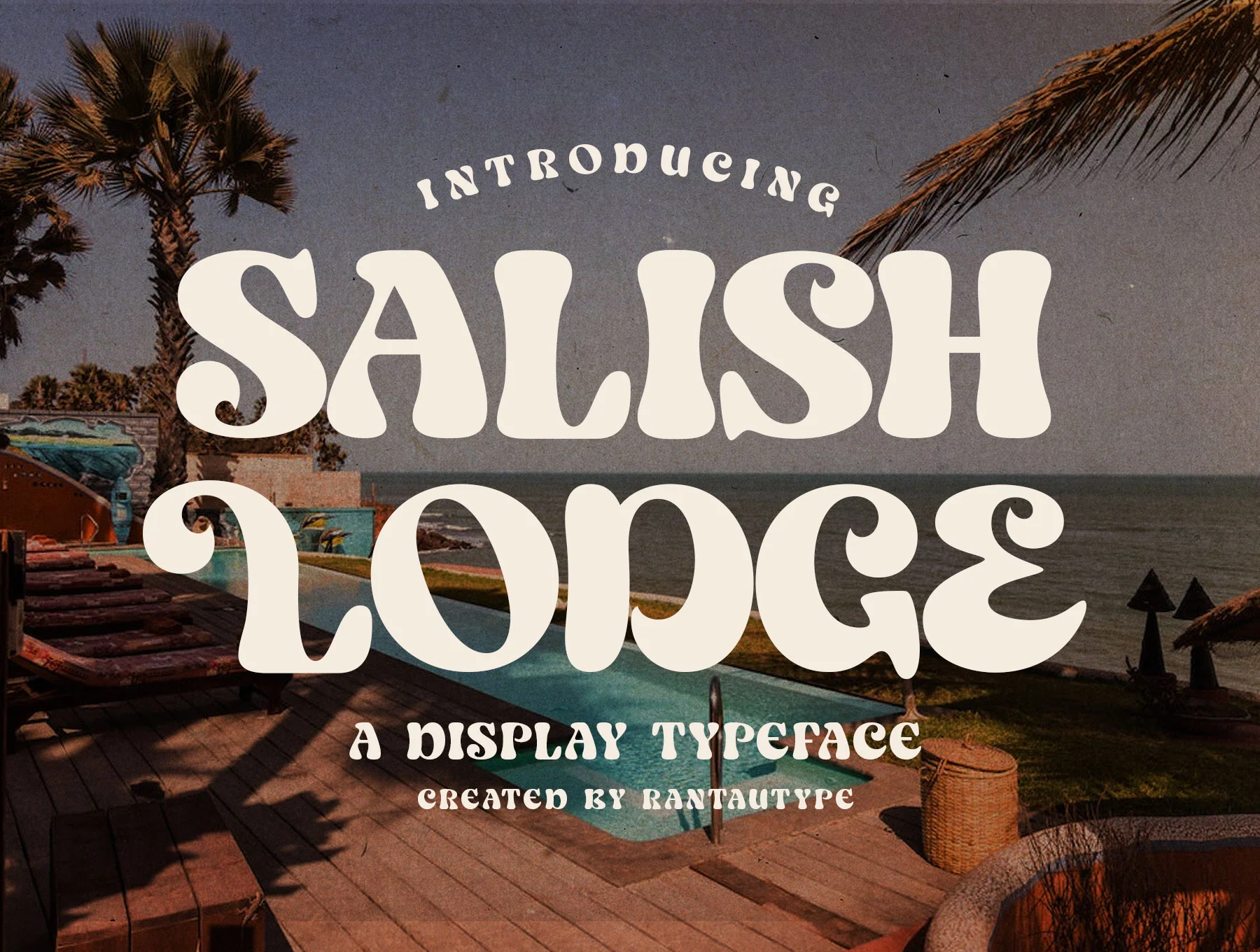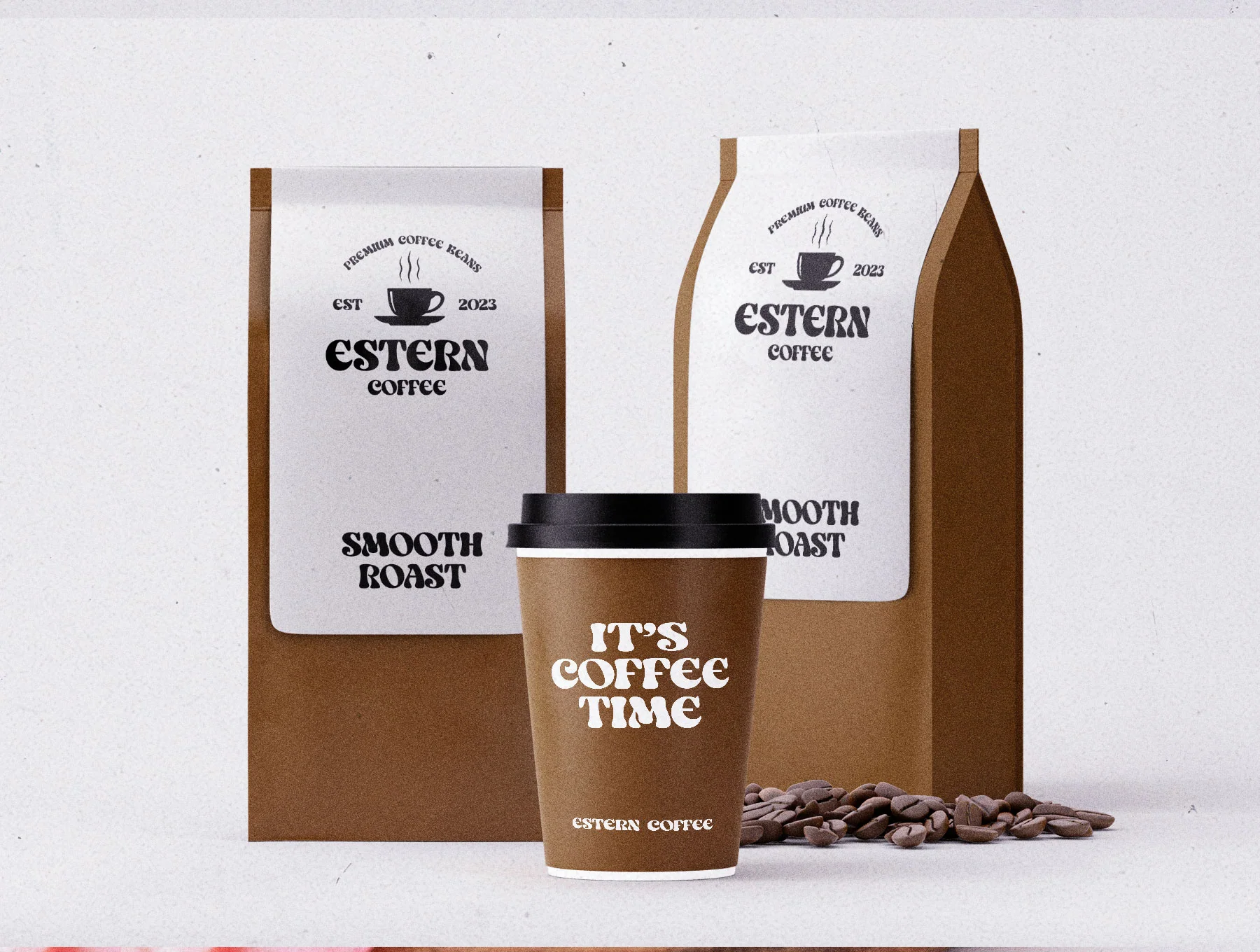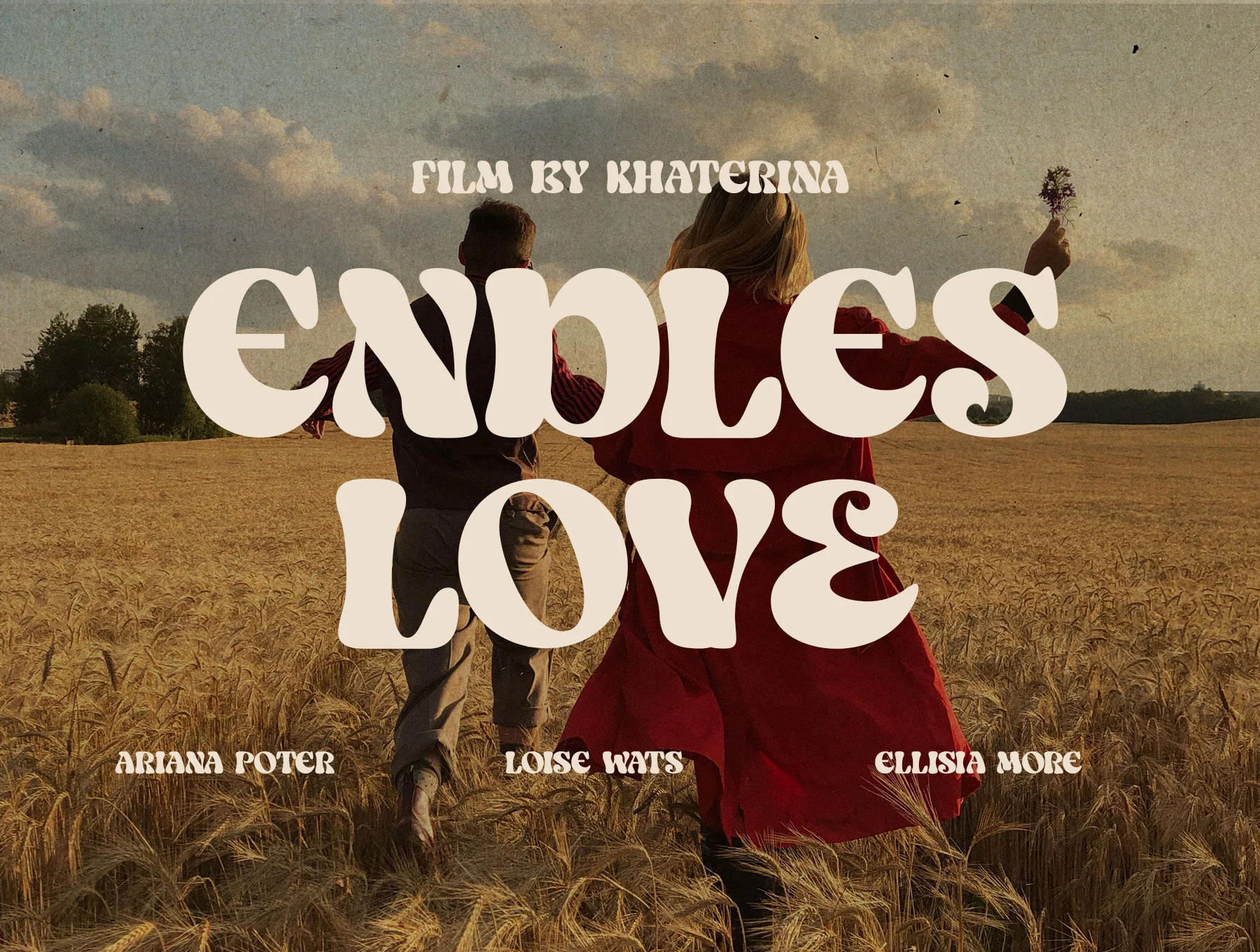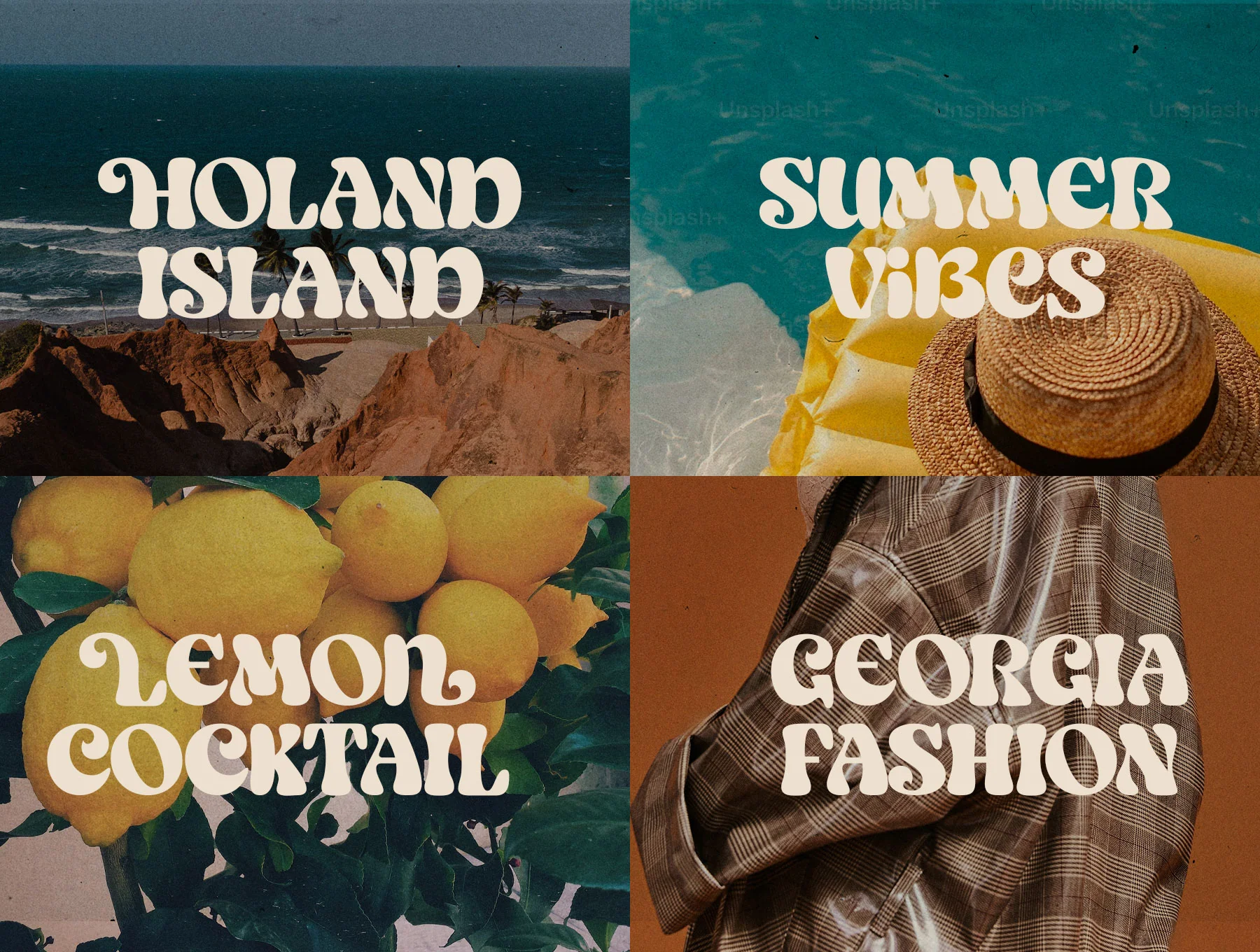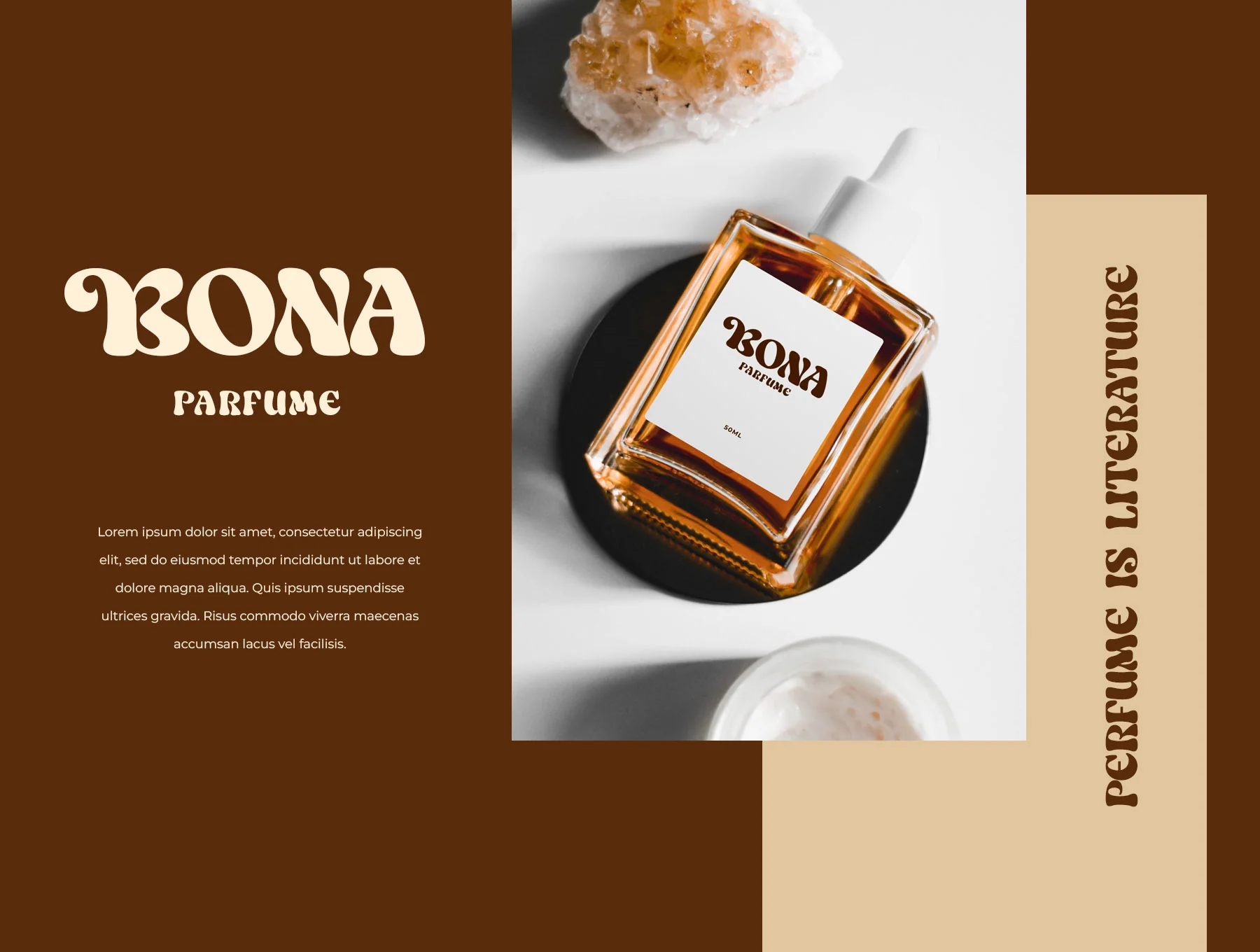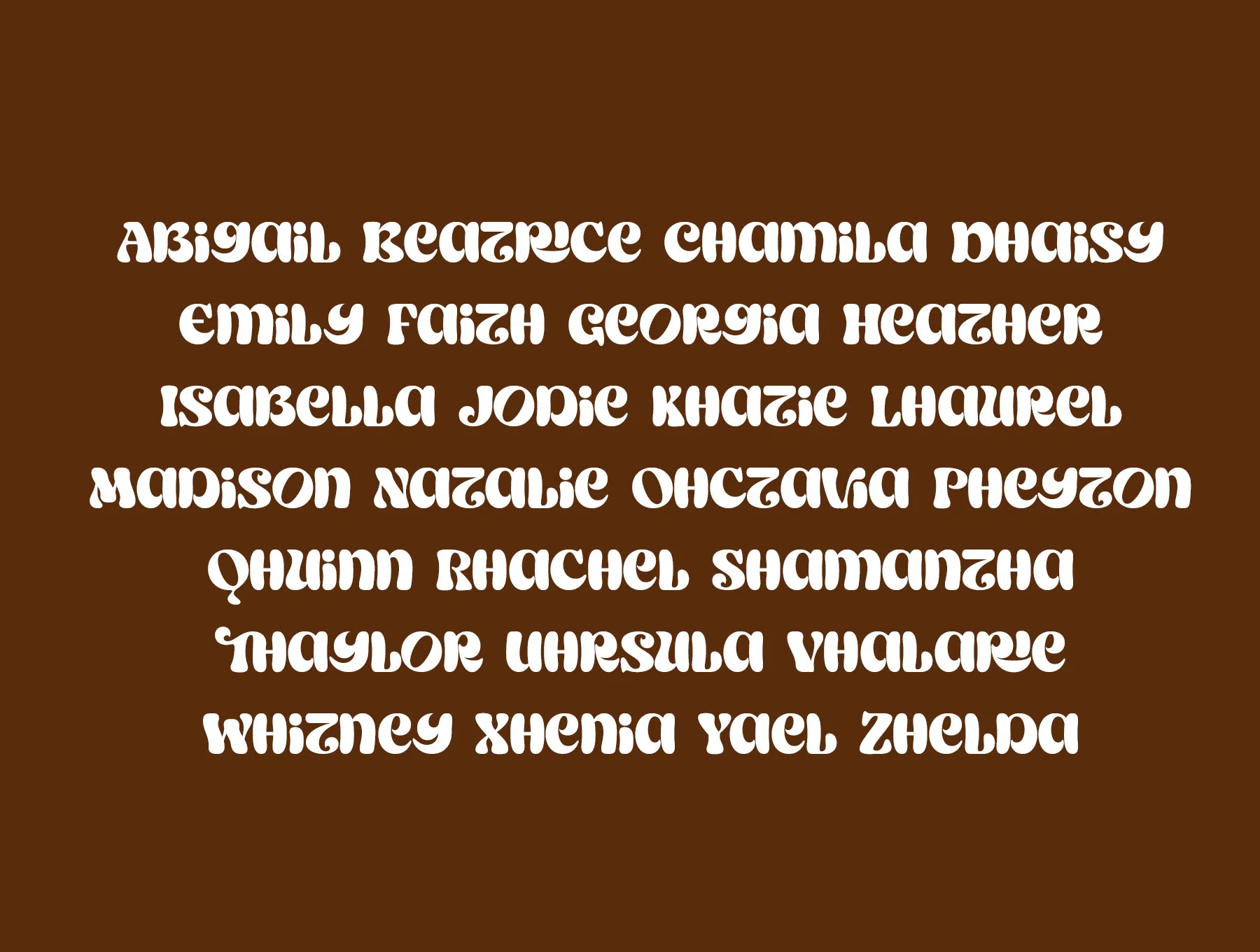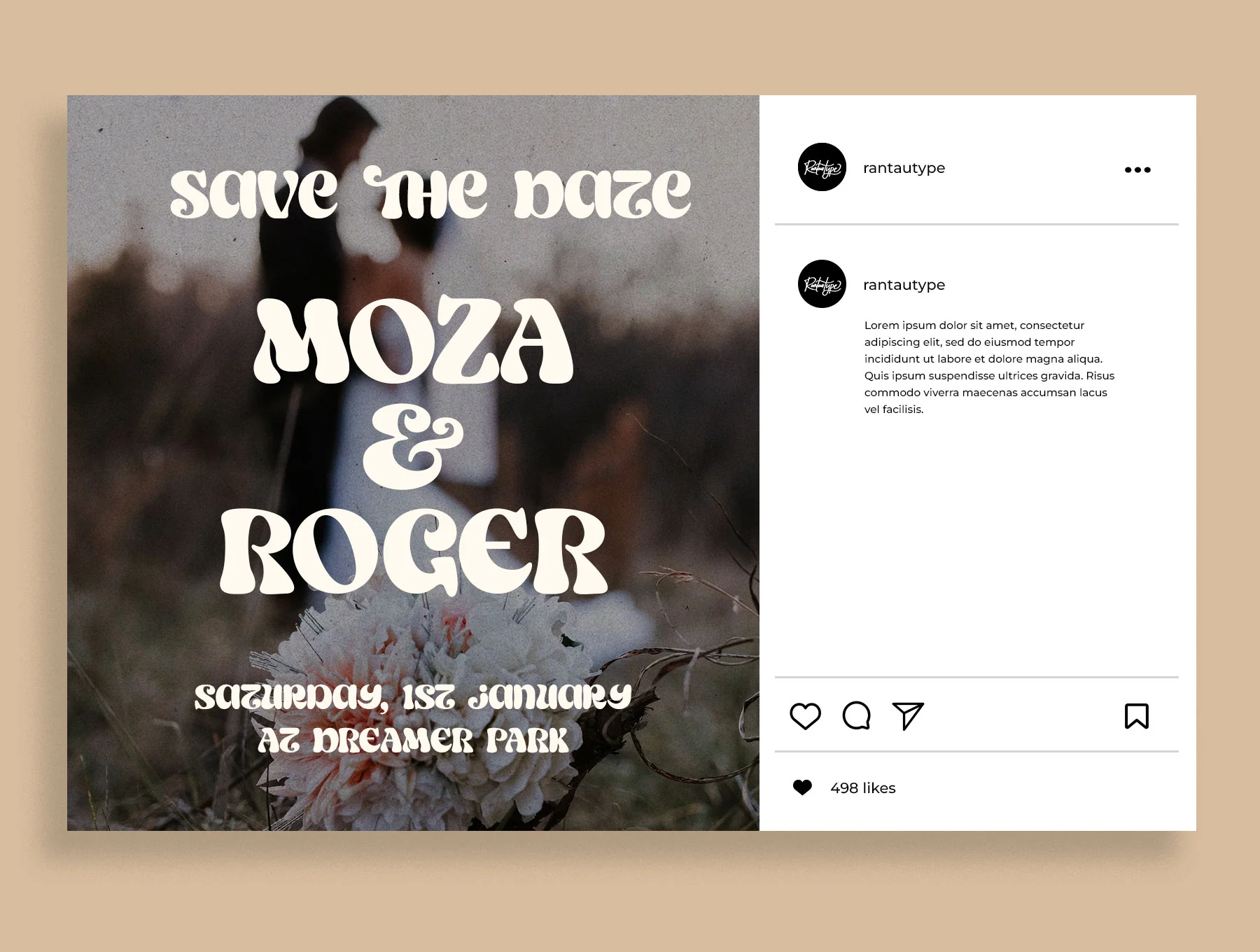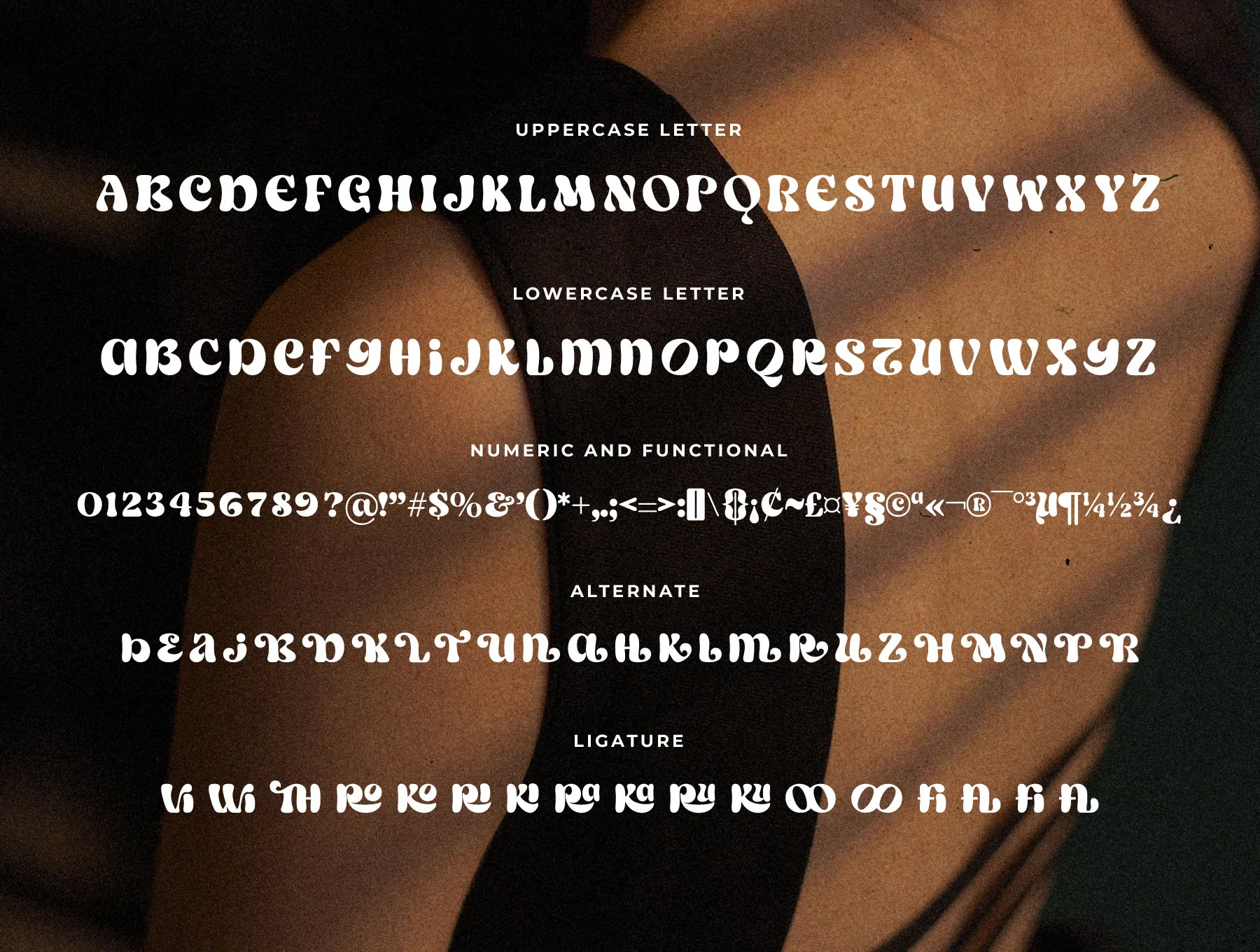
Salish Lodge a Display Typeface
Salish Lodge: Decorative Typeface
Basic A–Z and a–z characters
Numerals and functional elements
Alternates plus ligature glyphs
Salish Lodge is a soft, bold display serif with rounded curves, a playful modern feel, and flexible styling. Includes regular and italic fonts with uppercase/lowercase, numbers, punctuation, alternates, ligatures, OpenType features, and broad multilingual accents. Supplied in OTF, TTF, and WOFF for logos, titles, covers, branding, magazines, and lifestyle designs.